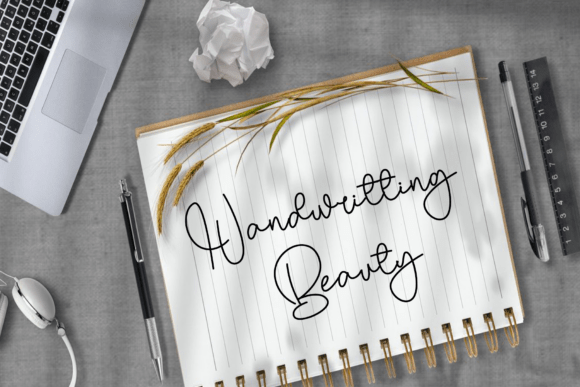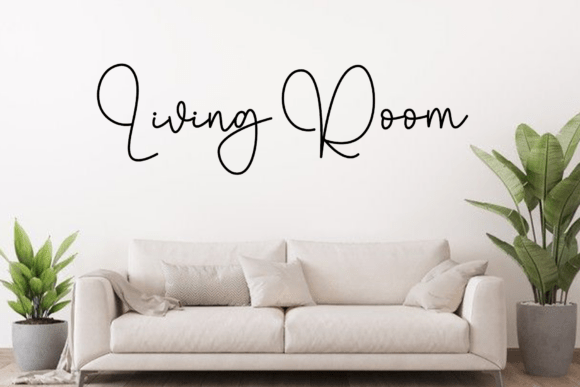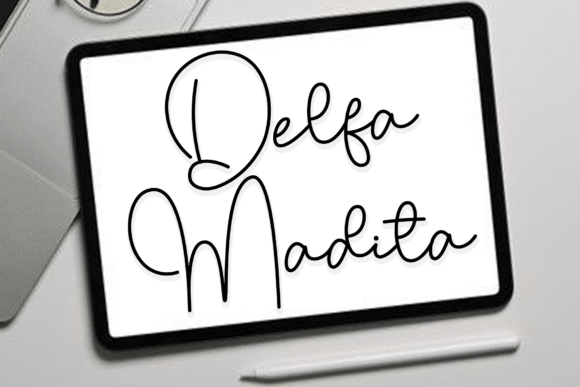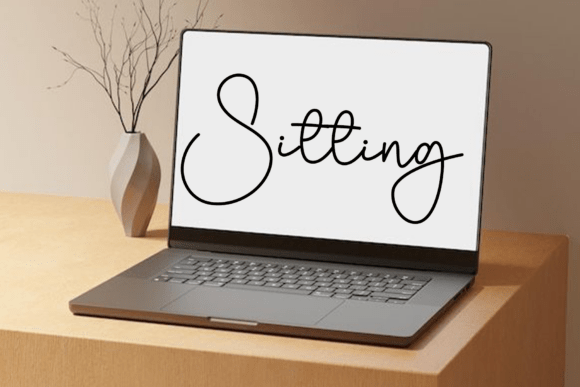
The Art of Handwritten Charm
Have you ever found yourself scribbling down a recipe in a beautiful, flowing script, only to realize that the moment was worth savoring more than the dish itself? For designers, this moment is what makes the Britany Font truly special – a sophisticated and rhythmic script font that balances a calligraphic style with a warm, organic aesthetic.
As a premier choice for artisanal food branding, boutique product packaging, upscale lifestyle marketing, and creative editorial titles, the Britany Font is a valuable addition to any designer’s toolkit. Its defining characteristic – sweeping, looping ascenders that create a sense of customized, artisanal artistry – makes it stand out from more generic fonts and allows designers to add a touch of handmade elegance to their projects.
Brittany Font Key Features
- Font Family: Brittany
- Font Styles: Regular, Italic, Bold, Bold Italic
- Character Count: 256 glyphs
- Unique Characteristics: A modern script font with elegant, flowing lines and a touch of sophistication, ideal for wedding invitations, wedding stationery, and other special occasions.
Britany Font Review
Britany font is a beautiful and elegant script font that has a certain charm to it. ✨ The flowing lines and subtle flourishes make it perfect for creating a romantic and whimsical atmosphere in your designs. It’s great for use in wedding invitations, greeting cards, or any other project that requires a touch of elegance.
One of the standout features of Britany font is its legibility. ✨ It’s easy to read, even at smaller font sizes, making it a great choice for body text or headings. The font also has a nice balance of light and dark lines, which adds to its overall aesthetic appeal.
- ⚠️ Britany font may not be the best choice for projects that require a more modern or edgy look. The font’s classic and traditional feel may not fit in with more contemporary designs.
- ⚠️ The font may be a bit too ornate for use in text-heavy designs. The flourishes and swashes can make the text feel cluttered if not used judiciously.
Overall, Britany font is a great addition to any designer’s toolkit. While it may have some limitations, its unique charm and elegance make it a great choice for the right project. With a little creativity and restraint, Britany font can add a touch of sophistication and whimsy to your designs.
Tips: Use Britany Font for headings and titles to add a touch of elegance to your design. Experiment with different font sizes and colors to create visual interest.
Tips: Use Britany Font for creative projects, such as illustrations or graphics. Experiment with layer styles and effects to add depth and texture to your design.
Tips: Use Britany Font for presentations and reports to add a touch of sophistication. Experiment with different font sizes and colors to create visual interest.
Britany Font is ideal for:
- Illustrations and graphics
Tips: Use Britany Font consistently across your brand to create a cohesive visual
Playfair Display is an elegant, high-end serif font. It is ideal for use in titles, headings, and other design elements where sophistication and luxury are desired. Compared to Brittany Font, Playfair Display has a more dramatic and refined feel, with intricate flourishes and details.
Great Vibes is a beautiful, modern script font. It is perfect for use in invitations, quotes, and other design elements where a touch of whimsy and elegance are desired. Compared to Brittany Font, Great Vibes has a more relaxed and casual feel, with a softer, more fluid line.
Carolyna Pro is a modern, elegant script font. It is ideal for use in titles, headings, and other design elements where sophistication and luxury are desired. Compared to Brittany Font, Carolyna Pro has a more refined and polished feel, with a more subtle and understated design.
Alex Brush is a beautiful, elegant script font. It is perfect for use in titles, headings, and other design elements where a touch of sophistication and luxury are desired. Compared to Brittany Font, Alex Brush has a more delicate and refined feel, with a softer, more fluid line.
Britany Font Creative Project Ideas
Design a unique and charming wedding invitation that incorporates the Britany Font for a vintage, yet elegant look.